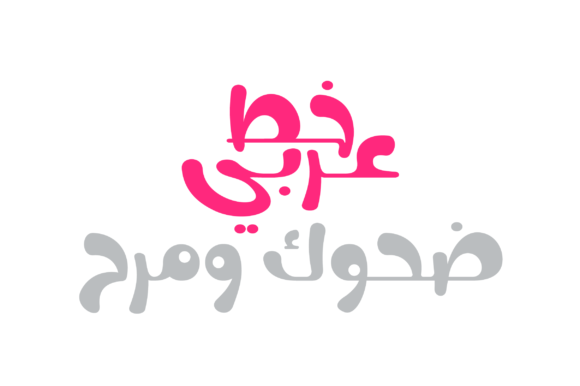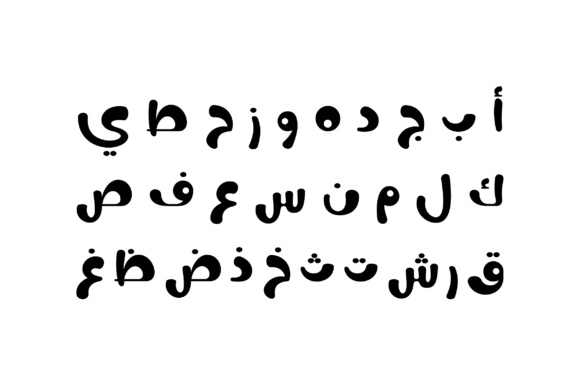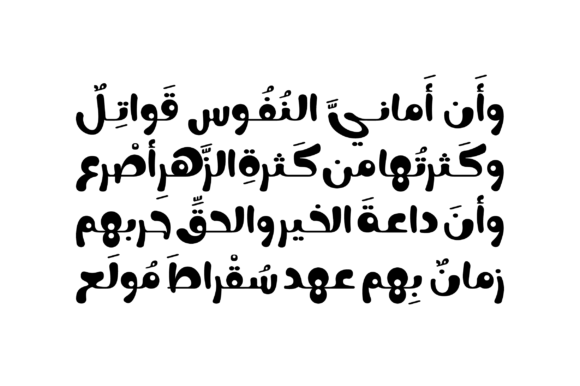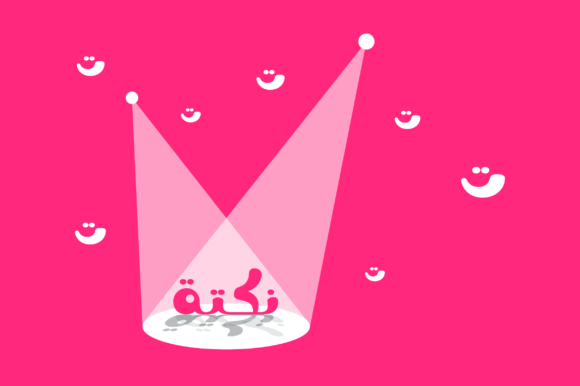
Introduction to Nokta Font
Nokta (which is the Arabic word for Joke) is an Arabic display font that features a humorous letterform design.
The font suits all types of titling including web, print, and mobile applications .
Why Choose Nokta Font?